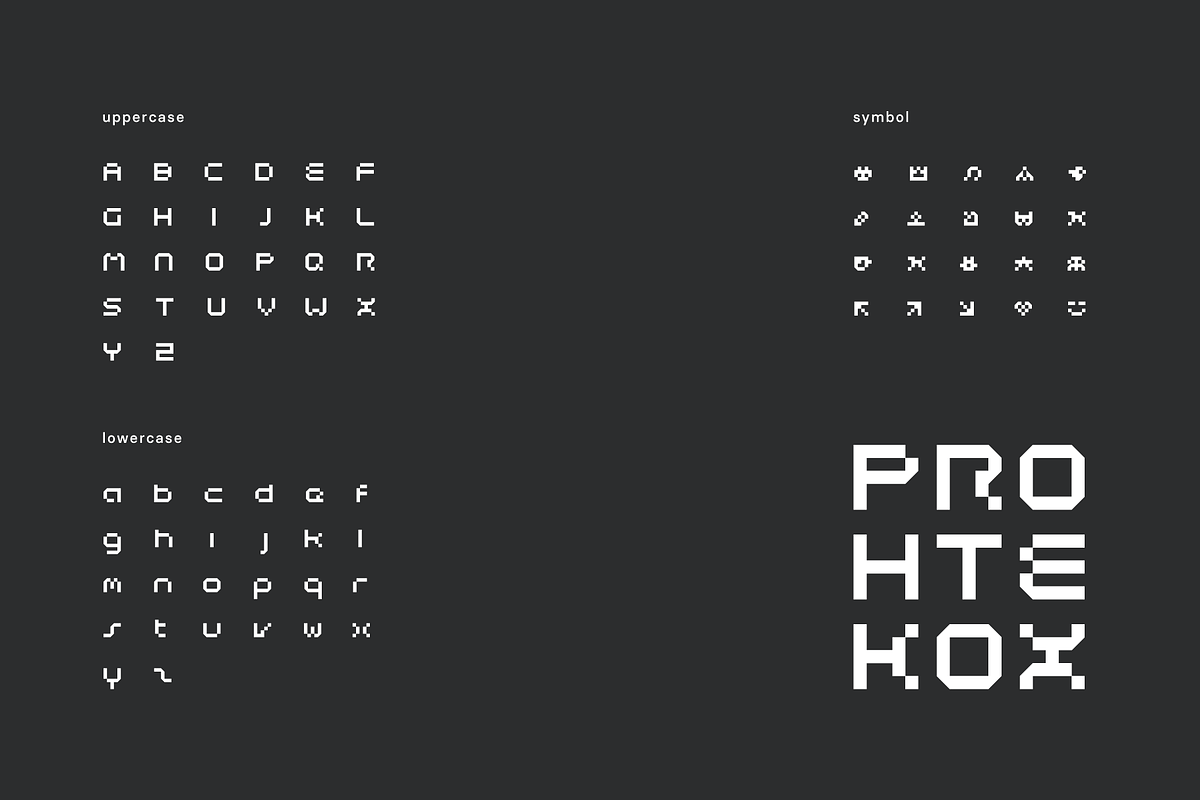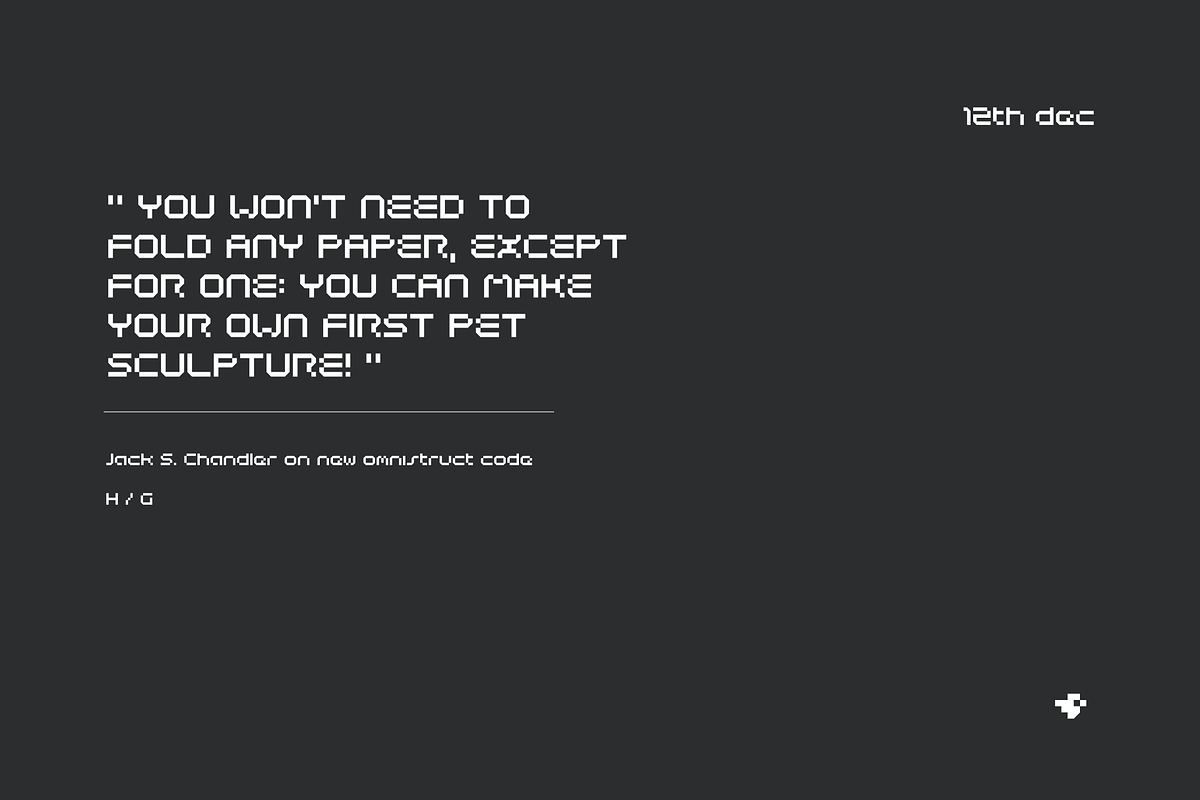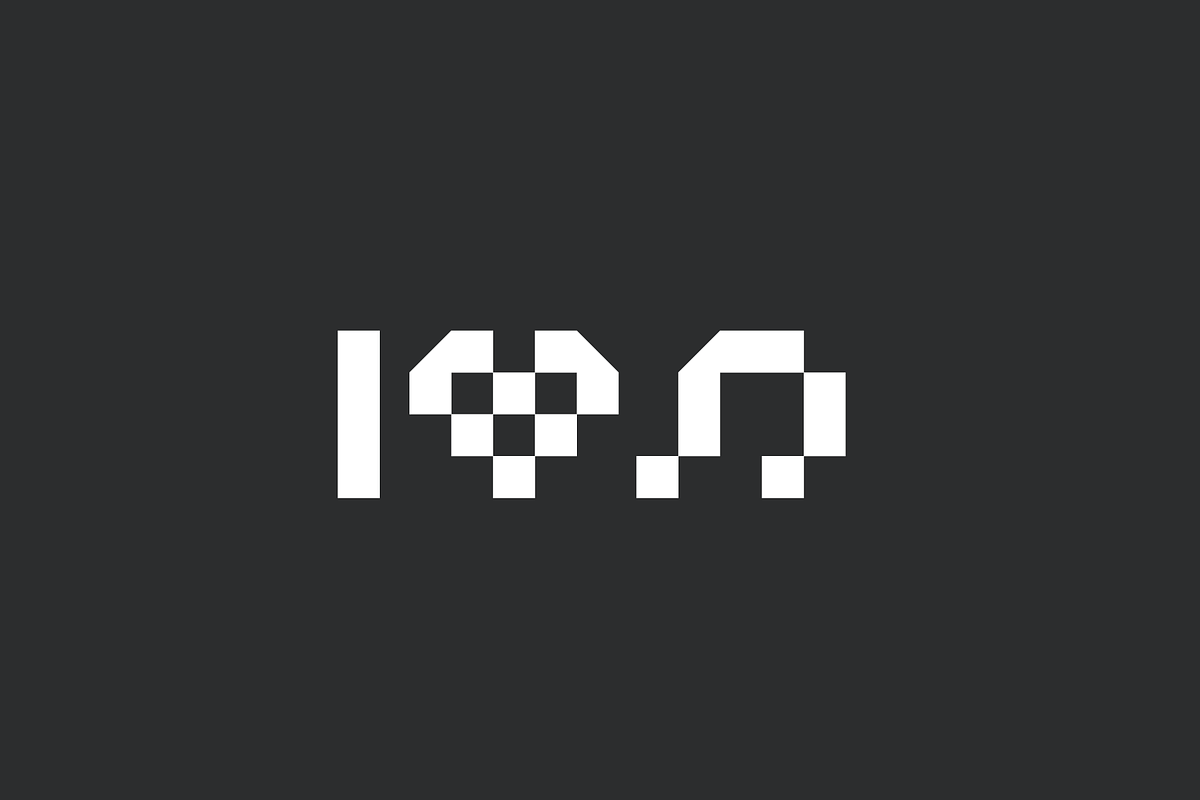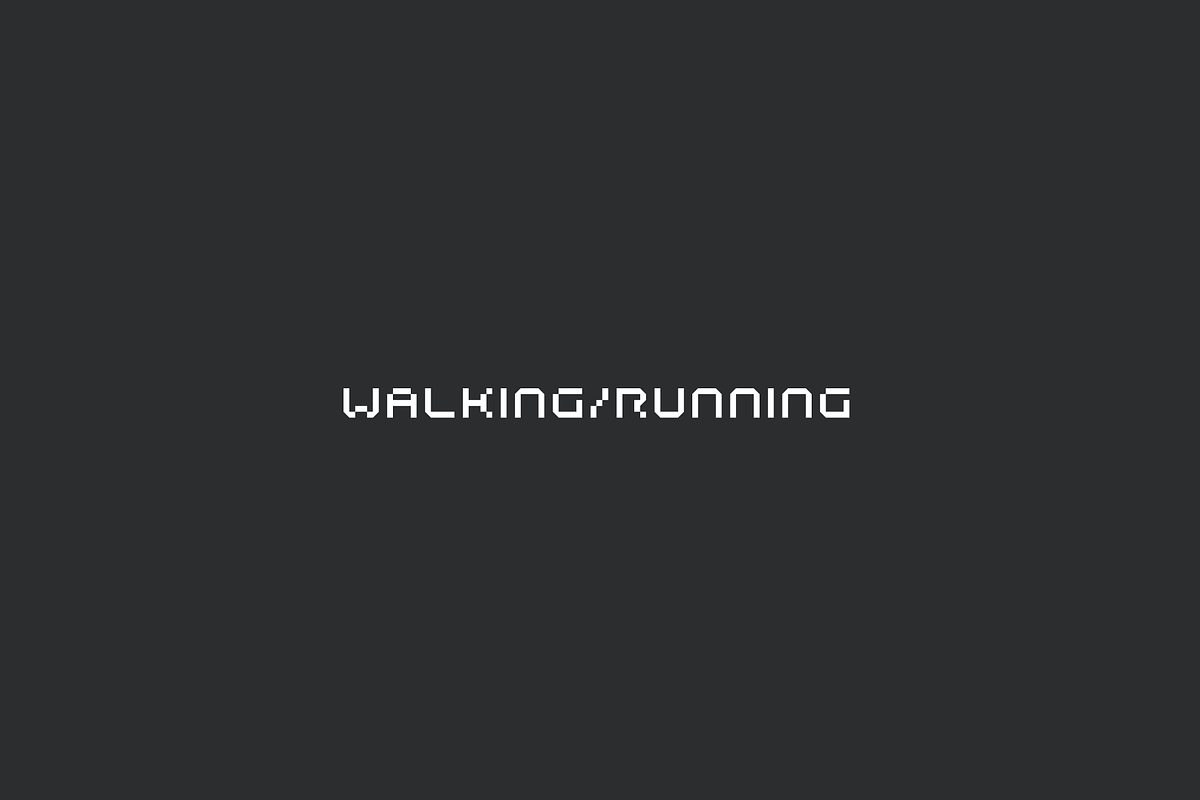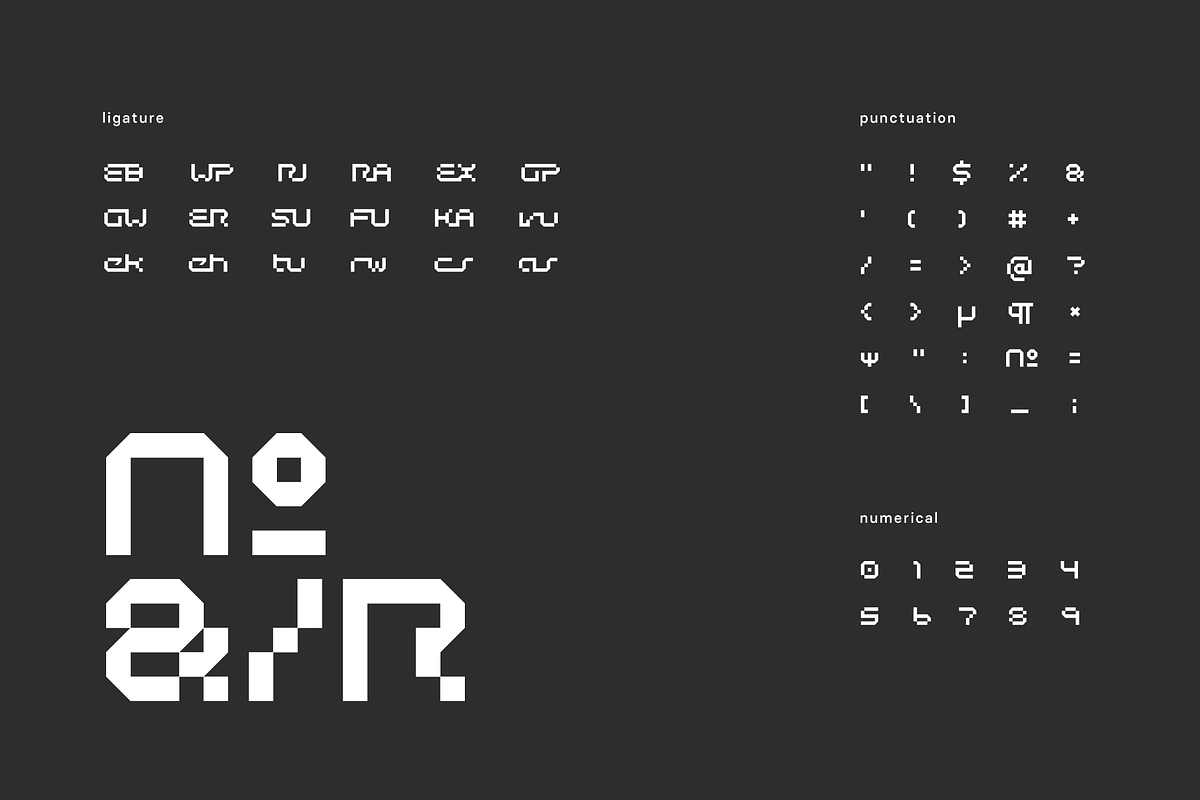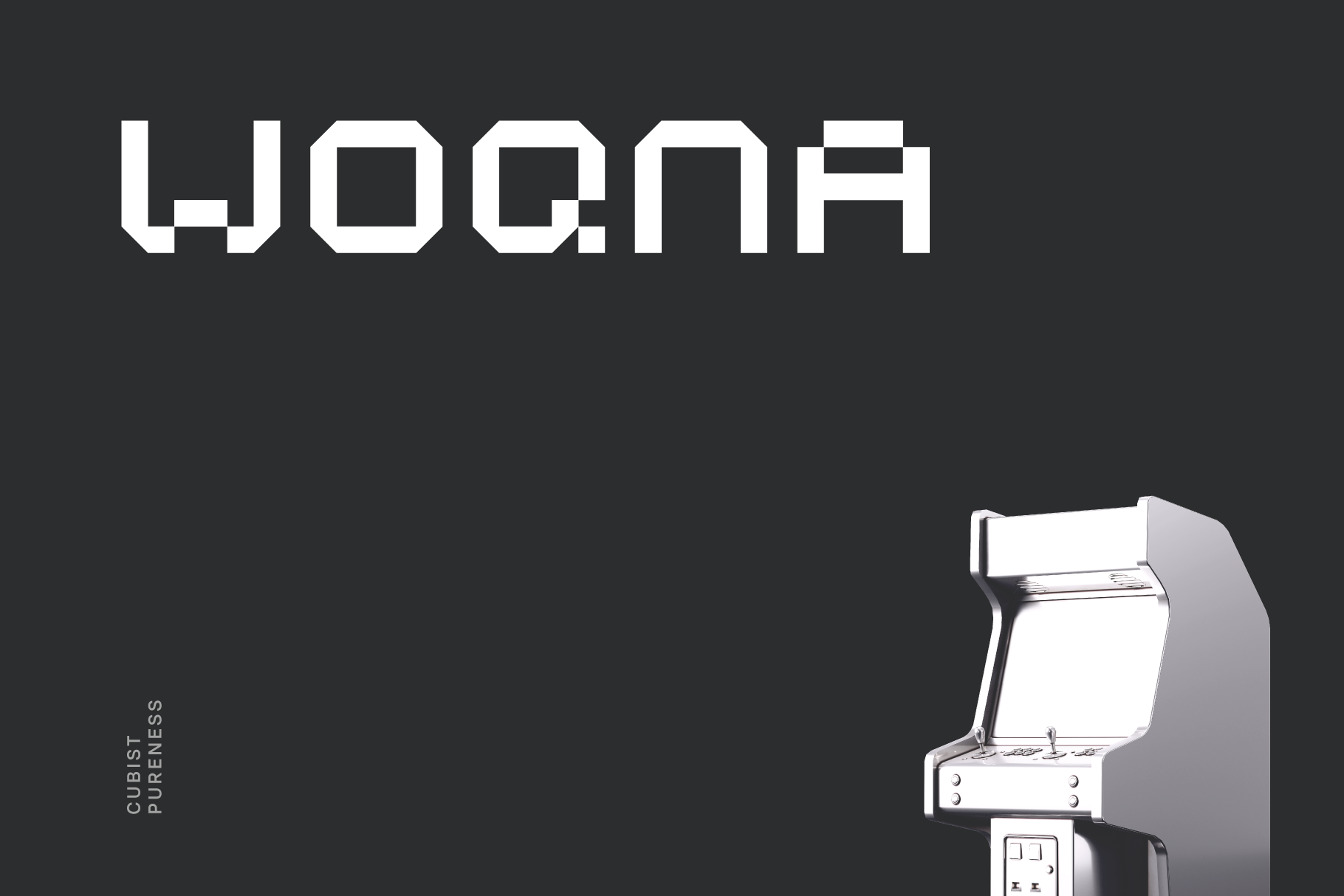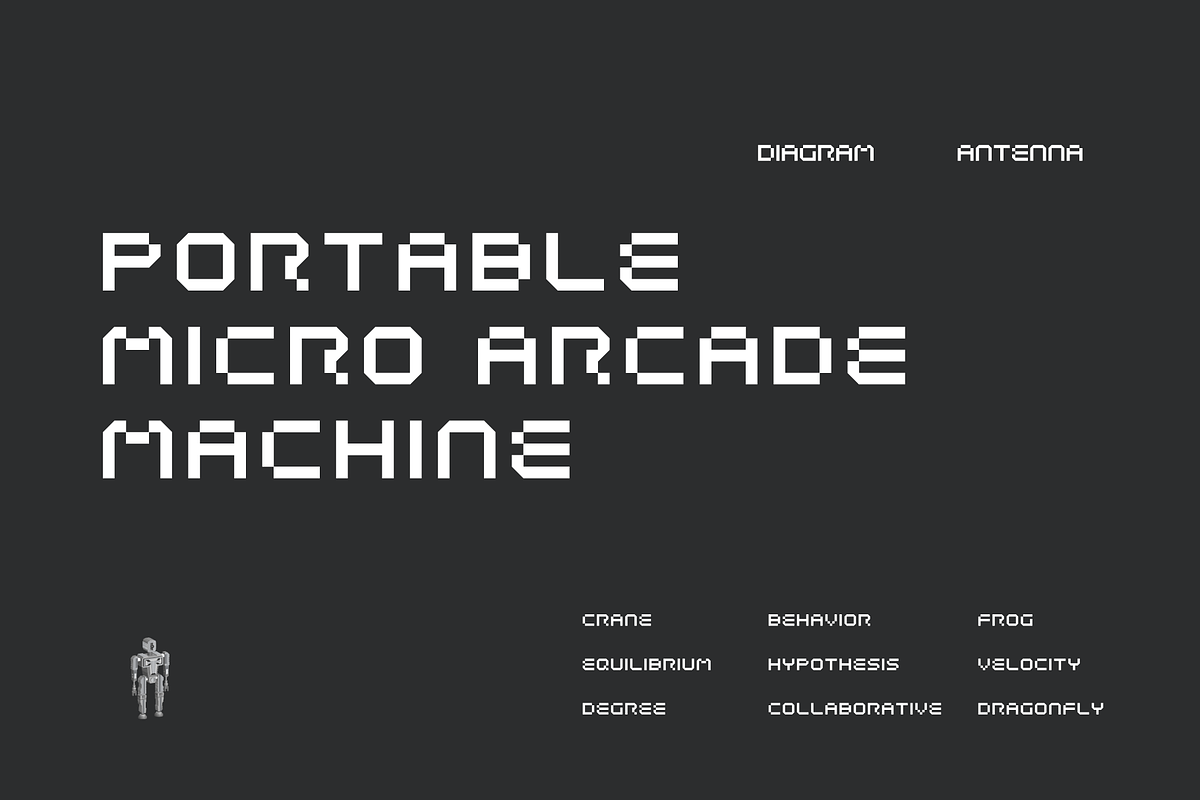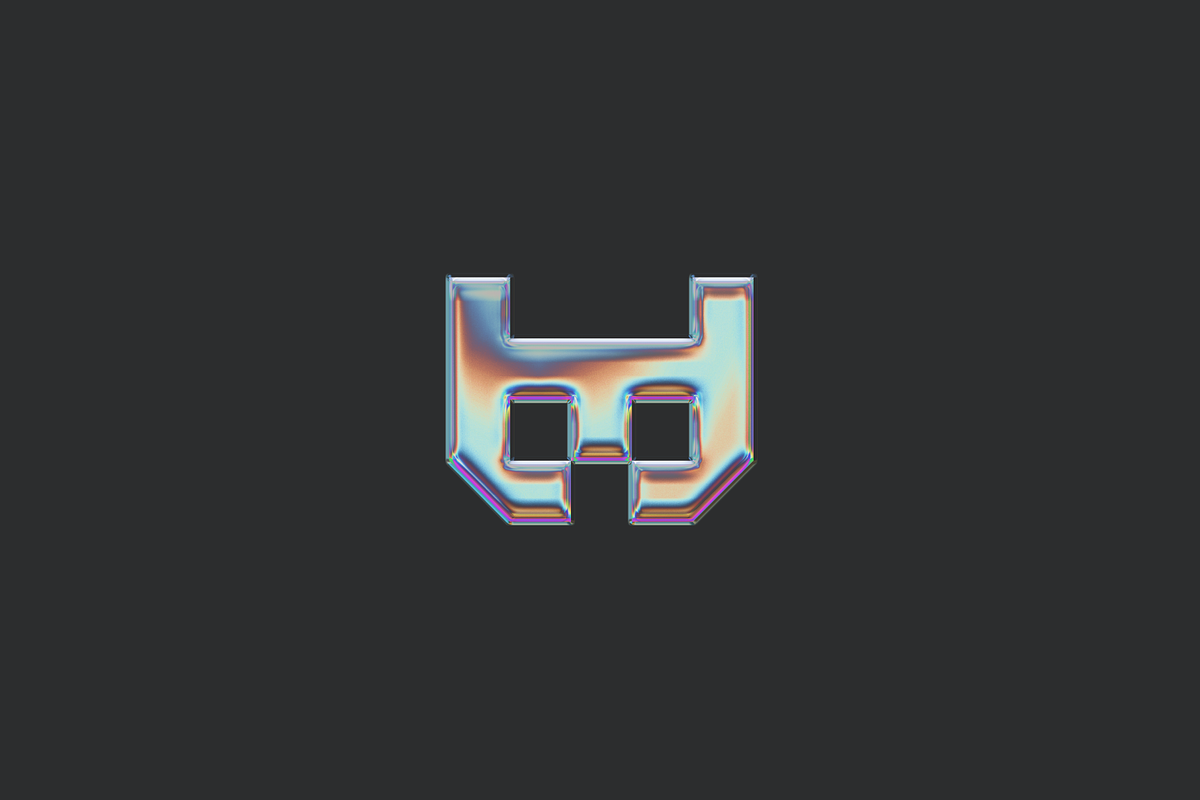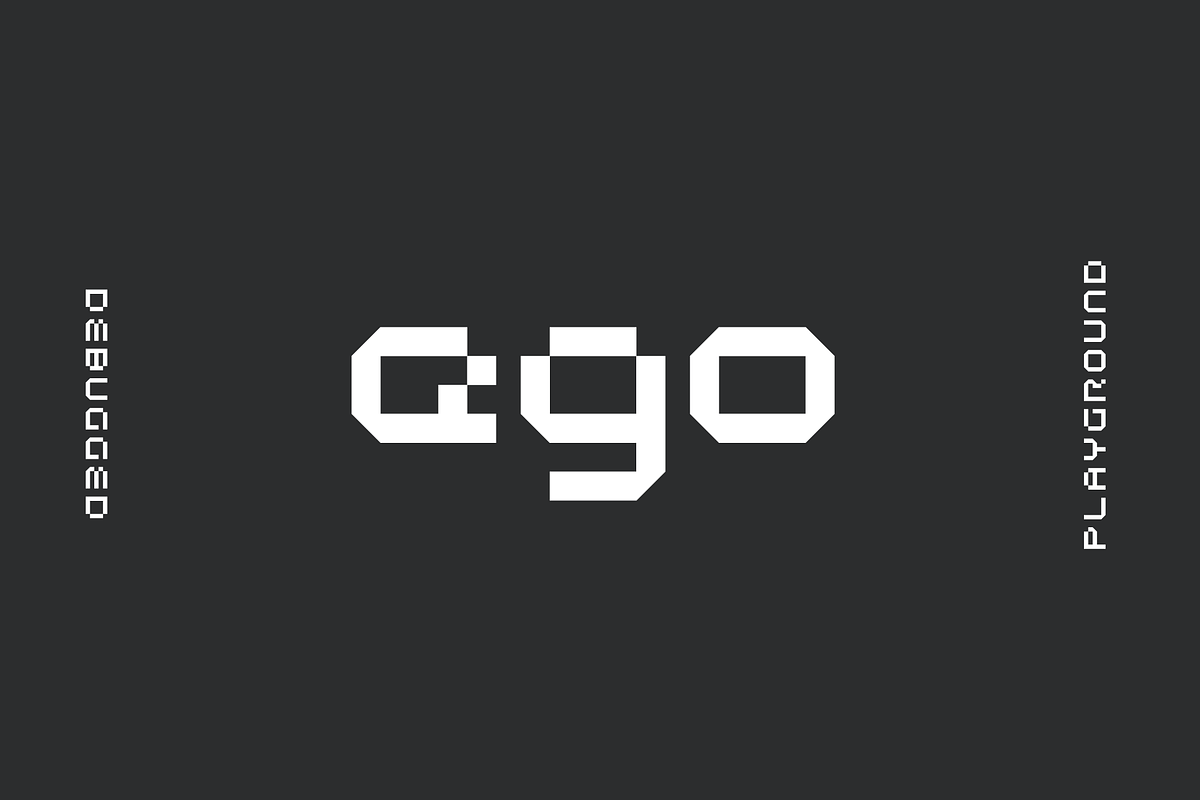
Woqna Pixel Tech Font
Woqna is a cubist pureness tech sans apt for headline, editorial, branding, packaging, printed materials and typographic applications. 150+ glyphs with ligatures and fractions provided in opentype .otf and .woff format.